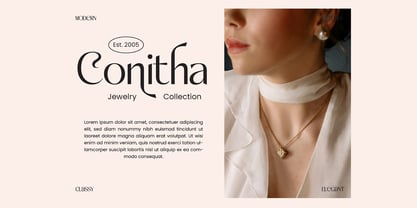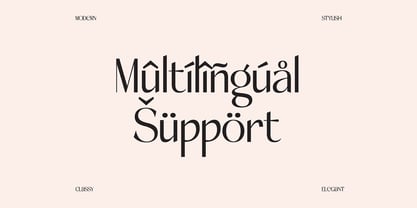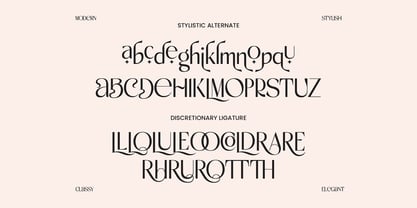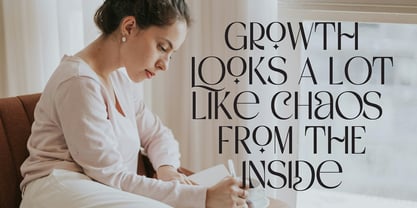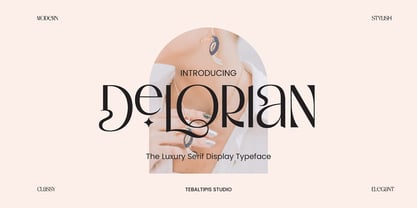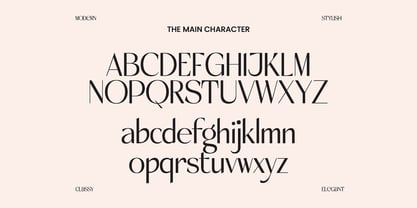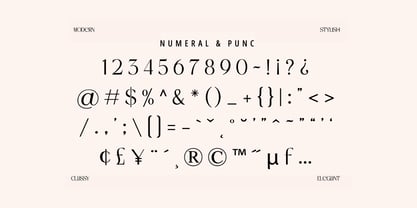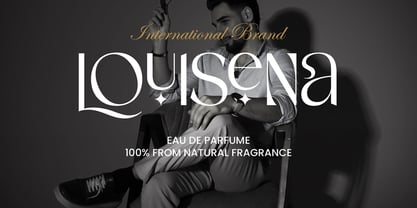
Delorian Display
by Tebaltipis Studio
The Delorian Display Font Family was designed by Dzulka Elfira and published by Tebaltipis Studio. Delorian Display contains 2 styles and family package options. More about this family
A Modern Classy Luxury Font that we created special for Luxury and Fashion branding needs, with extra characters alternate in unique shape will be ready to add value of your brand. It so nice to leverage designer or product owner that need solutions to make their design look more classy and modern. And specially for this font, We prepared any alternate characters to help you create unlimited variations for your creative needs. Delorian Display Font come with 200+ glyphs. The alternative characters were divided into several Open Type features such as Swash, Stylistic Sets, Stylistic Alternates, and Ligature. The Open Type features can be accessed by using Open Type savvy programs such as Adobe Illustrator, Adobe InDesign, Adobe Photoshop Corel Draw X version, And Microsoft Word. And this Font has given PUA unicode (specially coded fonts). so that all the alternate characters can easily be accessed in full by a craftsman or designer.
Designers: Dzulka Elfira
Foundry: Tebaltipis Studio